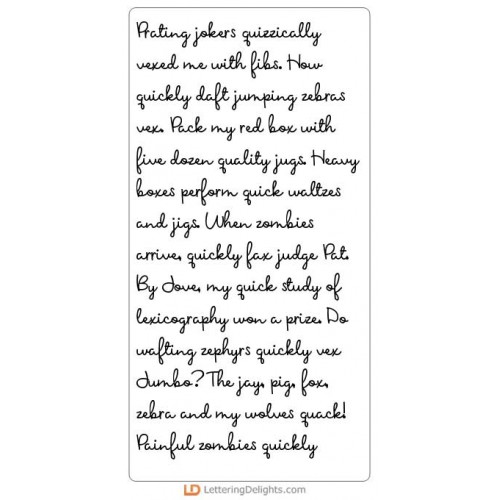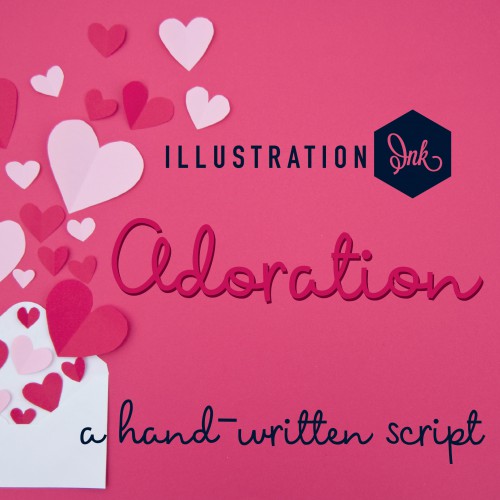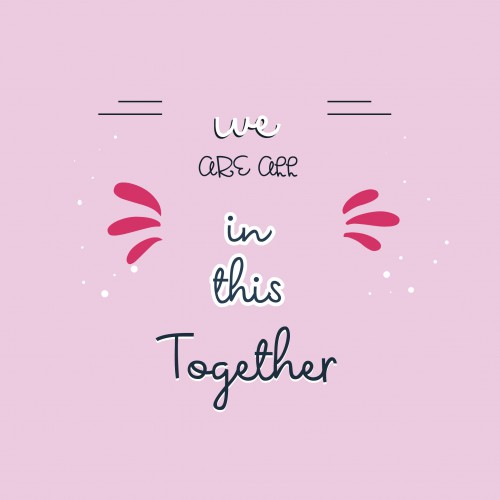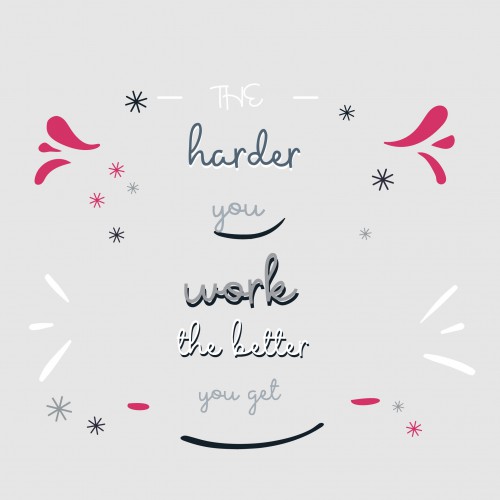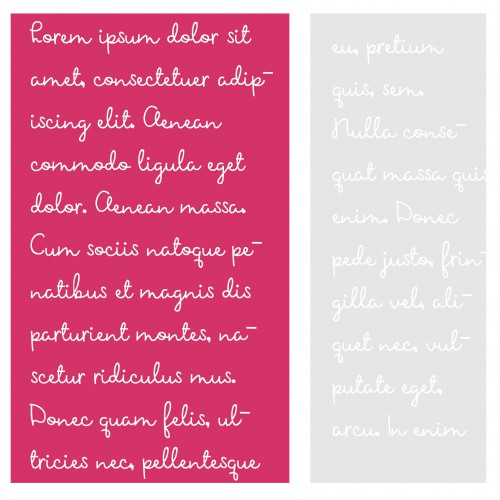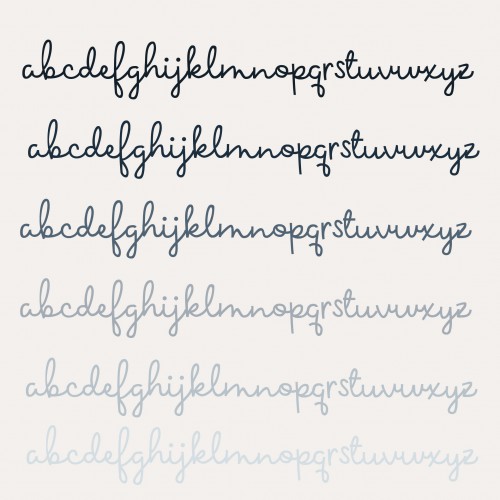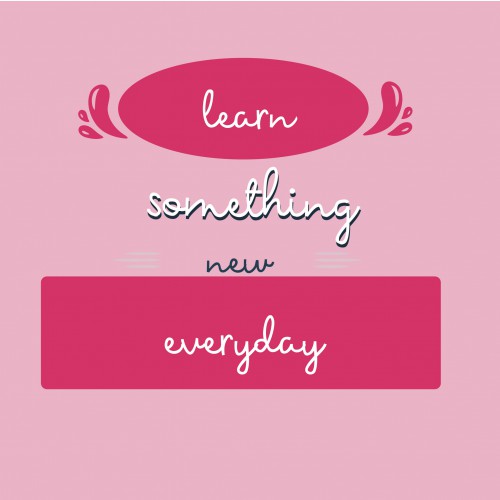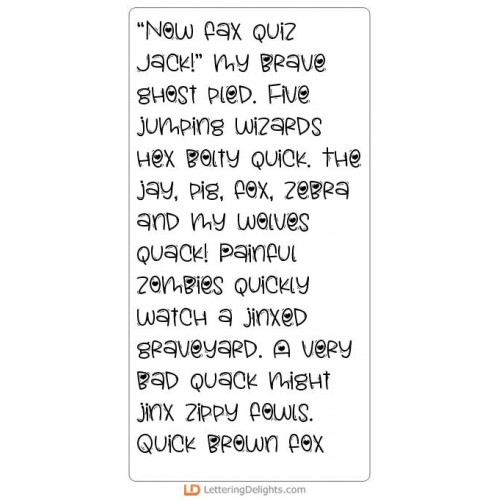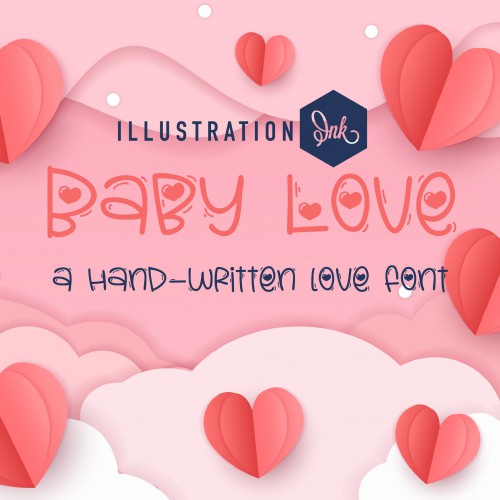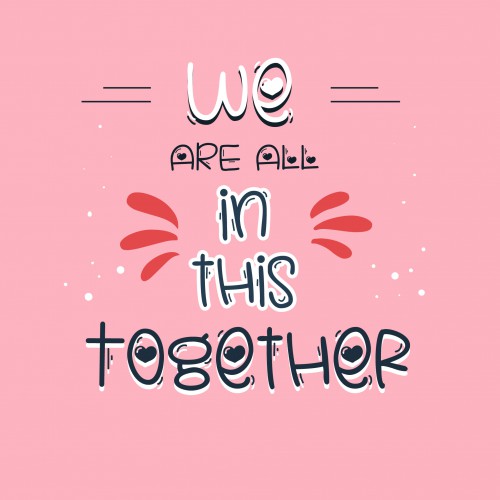
Love Story - Font Bundle
This giant bundle of love-themed fonts is great for Valentines day or anytime you want to show love
• PN Adoration - FN
• ZP Shot Thru The Heart - FN
• PN Baby Love - FN
• PN Beloved - FN
• PN Hanging Hearts - FN
• PN Ladylove - FN
• PN Lollipop Love - FN
• PN Longmire Love - FN
• PN Long Island Love - FN
• ZP Pocketful Of Love - FN
• PN Love Letters - FN
• PN Nifty Lovenotes - FN
• PN Pinky Love - FN
• PN Platonic Love - FN
• PN Pog Love - FN
• ZP Champion Of Love - FN
• ZP Falling In Love - FN
• ZP Gobs Of Gushing - FN
• ZP Lovesick - FN
• ZP Love Hatch - FN
PN Adoration - FN
This hand-written script is a fun cursive with print-like uppercase...
ZP Shot Thru The Heart - FN
This pretty cursive font uses the greater than and less than symbols () to make arrows that shoot th..
PN Baby Love - FN
This cute, hand-printed font features hearts and glow marks...
PN Beloved - FN
This cute, sans serif features hearts on each letter..
PN Hanging Hearts - FN
This hand-printed font features a sans serif font with heart ornaments hanging throughout...
PN Ladylove - FN
This hand-written font sports feminine curls throughout...
PN Lollipop Love - FN
This sans-serif font features hearts and dots throughout...
PN Longmire Love - FN
This sans serif is decorated with hearts..
PN Long Island Love - FN
This quasi script/serif font is decorated with hearts throughout..
ZP Pocketful Of Love - FN
This cute hand-written font features many little hearts throughout...
PN Love Letters - FN
This hand-written print is based on love letters and notes...
PN Nifty Lovenotes - FN
This hand-written print features boxes, hearts, and dots...
PN Pinky Love - FN
This chunky sans serif has hearts for holes..
PN Platonic Love - FN
This retro font has a 1960's feel with a heavy base and hearts throughout...
PN Pog Love - FN
This modern, video game font features hearts throughout...
ZP Champion Of Love - FN
This serif font features several hearts, letters in reverse and within stamps...
ZP Falling In Love - FN
This hand-printed font features hearts for dots..
ZP Gobs Of Gushing - FN
This hand-crafted serif font features gobs of hearts...
ZP Lovesick - FN
This blocky sans serif is great for titles, displays, posters and more..
ZP Love Hatch - FN
This hand-crafted, sans serif had a whimsical inline and hearts throughout...